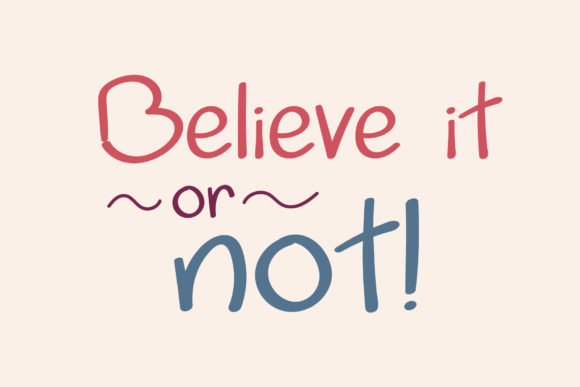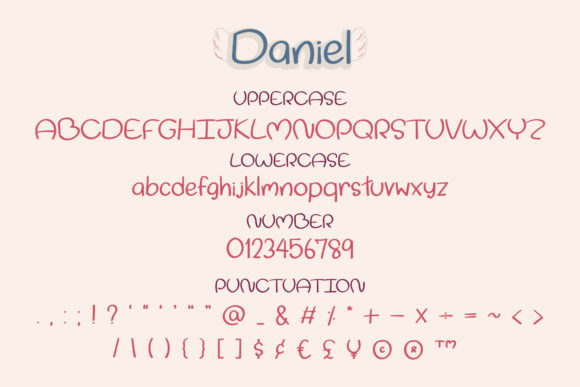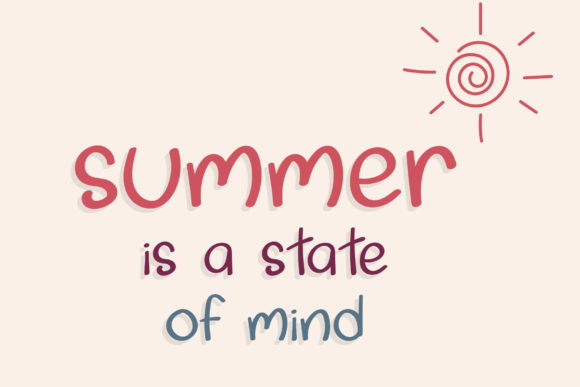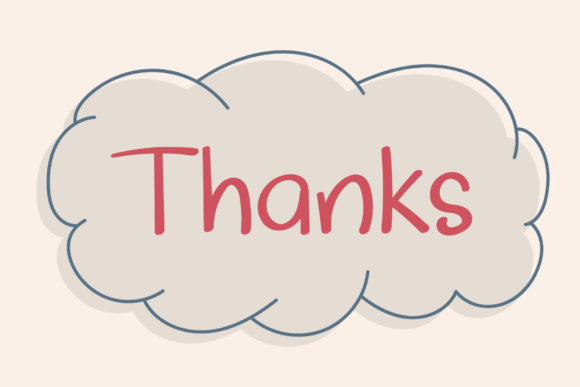
Daniel Font
About Daniel Font
Daniel is a cute and casual handwritten font with an incredibly friendly feel. Whether you’re looking for fonts for Instagram or calligraphy scripts for your DIY projects, Daniel will turn any creative idea into a lovely piece of art!